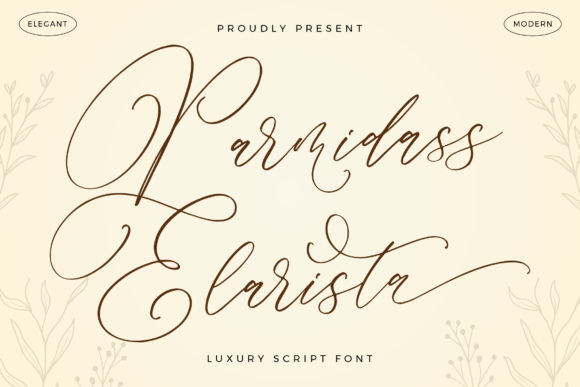
Unleash the Enchantment of Parmidass Elarista: A Handwritten Font That Evokes Romance and Creativity
In the realm of digital artistry, where words take flight and creativity knows no bounds, Parmidass Elarista emerges as a captivating script font, beckoning you to weave tales of love, dreams, and boundless imagination. Crafted with meticulous care by the artisans at Storytype Studio, this enchanting font possesses an innate charm that will transform your digital creations into captivating expressions of art.
Indulge in the versatility of Parmidass Elarista, a font that effortlessly adapts to a myriad of design endeavors. Whether you seek to craft heartfelt greeting cards that convey your deepest emotions, design logos that exude elegance and sophistication, or create website toolbars that inspire and engage, Parmidass Elarista stands as your steadfast companion, guiding you towards design excellence.
With its graceful curves, delicate strokes, and an inherent sense of romance, Parmidass Elarista adds a touch of magic to every project it graces. Its captivating aesthetic will effortlessly elevate your designs, evoking a sense of wonder and enchantment in the hearts of your audience. Let your creativity soar as you harness the power of Parmidass Elarista, transforming ordinary words into extraordinary expressions of art.